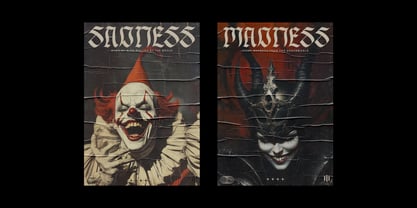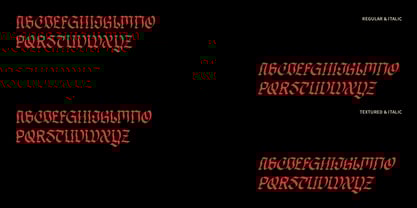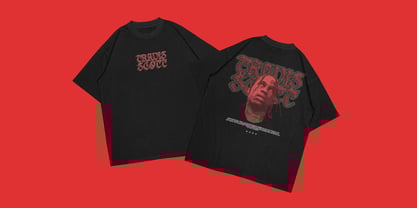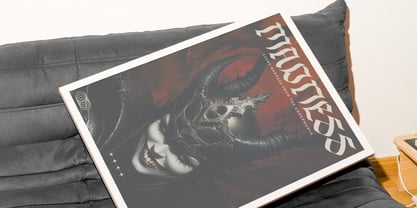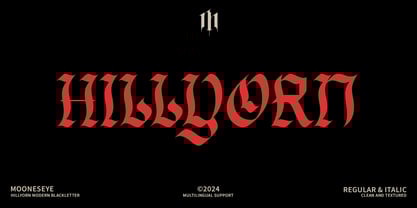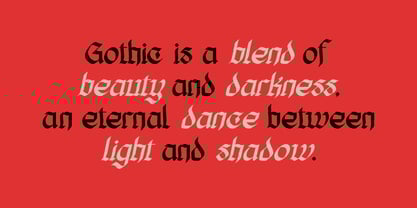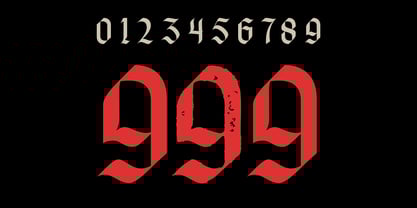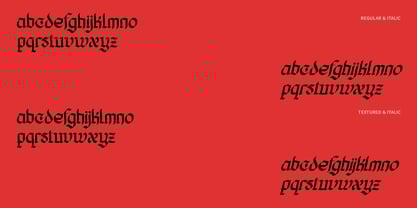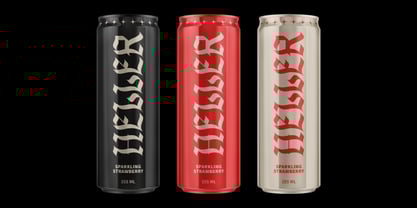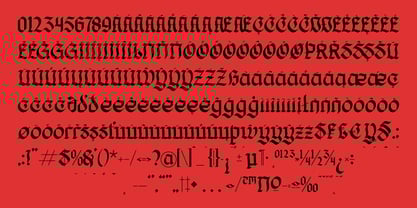
Hillyorn Blackletter
Hillyorn Modern Blackletter is a versatile and striking font that effortlessly blends classic blackletter aesthetics with modern design principles. Its intricate details and bold strokes make it an ideal choice for a wide range of creative projects, from beer labels and t-shirt designs to eye-catching posters. Whether you're aiming for a vintage, gothic, or simply a unique look, this font adds a touch of sophistication and intrigue to any design.